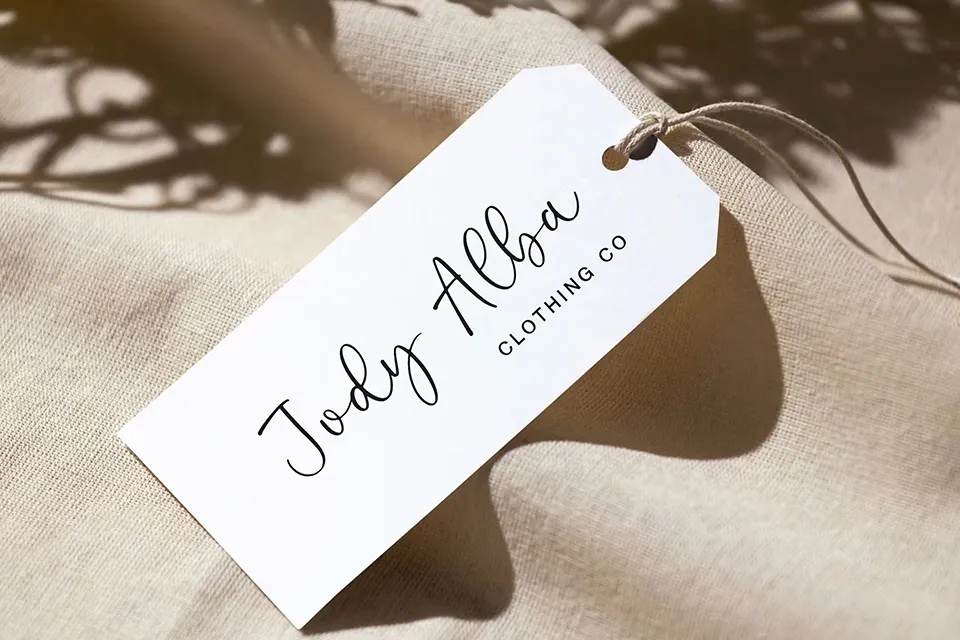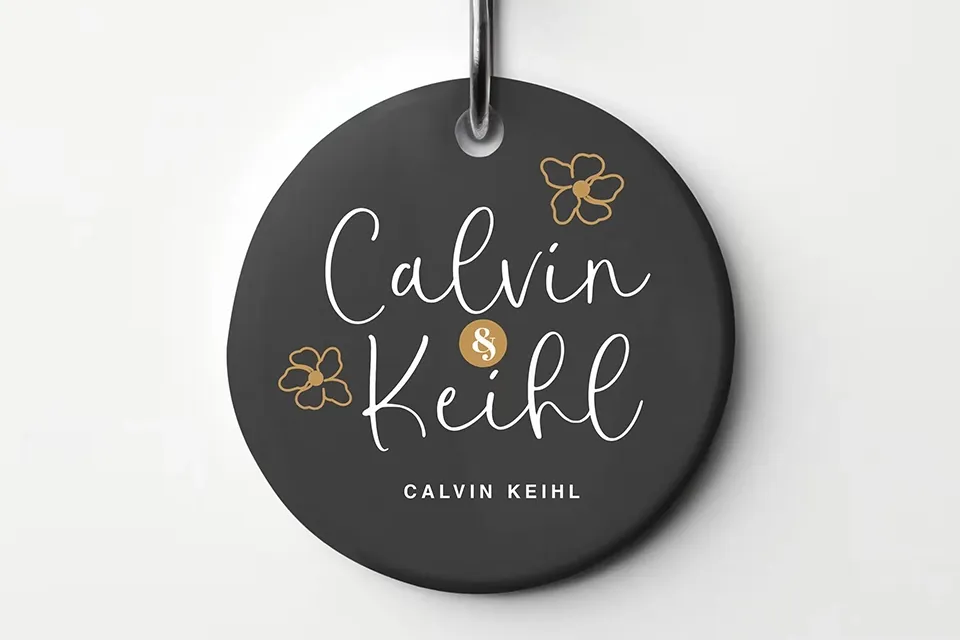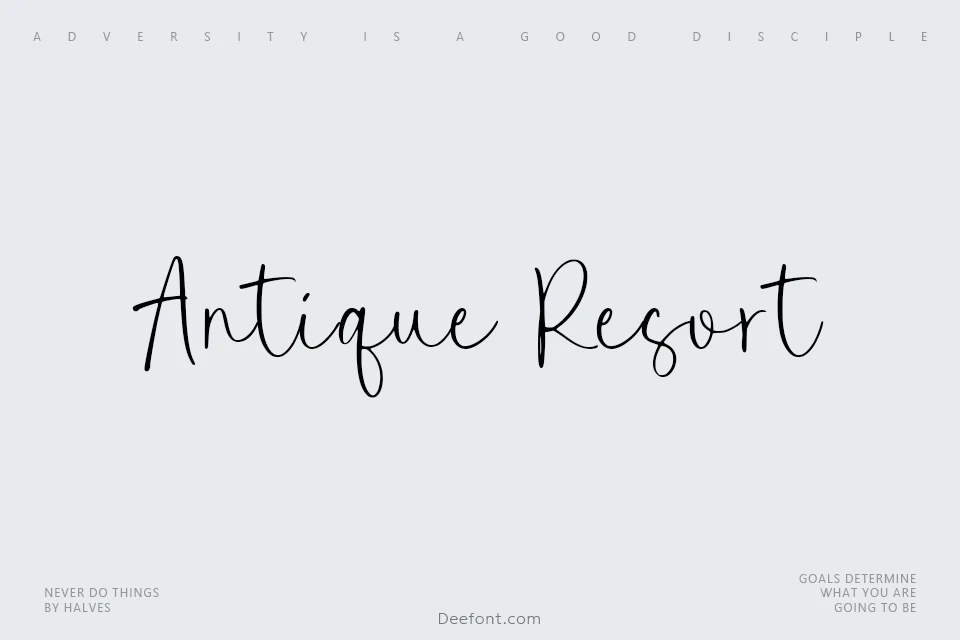
Antique Resort Font
Antique Resort Font is a beautiful calligraphy typeface designed to add a natural, organic, and elegant touch to your creative projects. Its unique handwritten style makes it ideal for invitations, branding, and any design that requires a charming, personal feel.